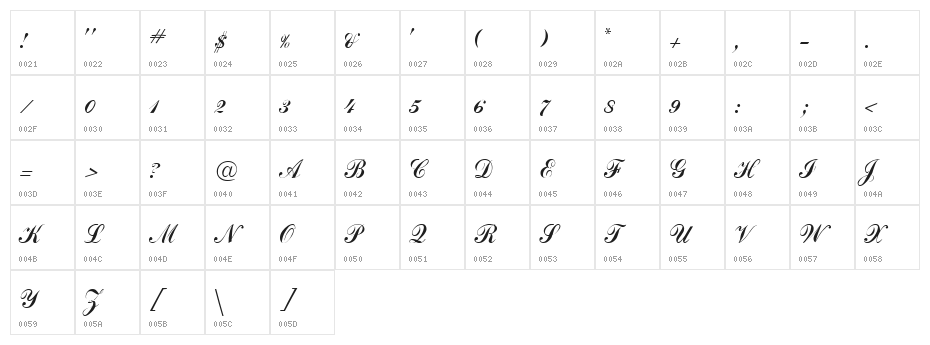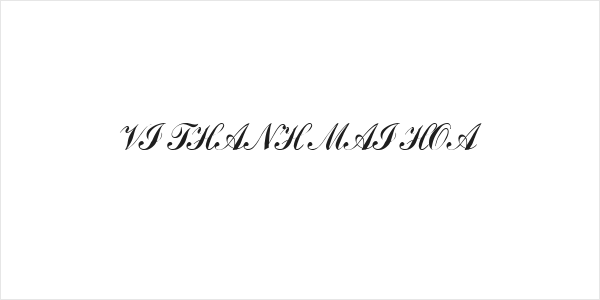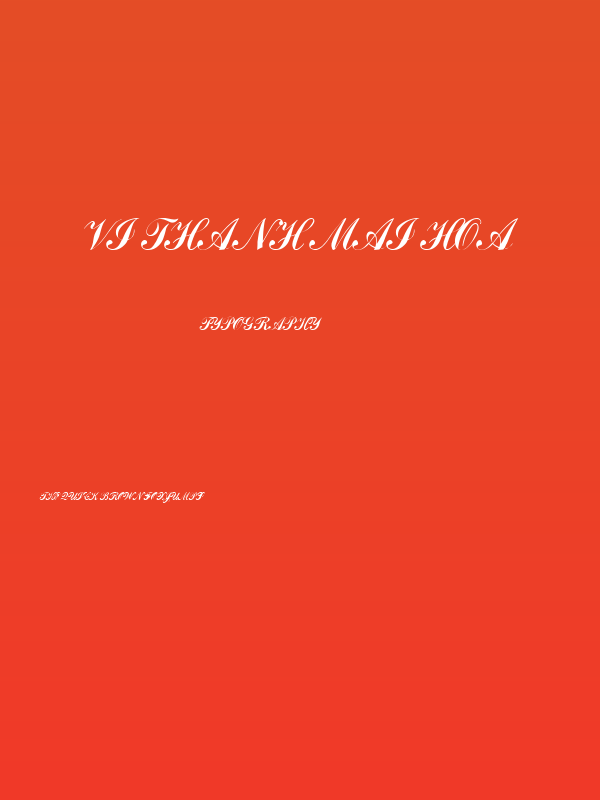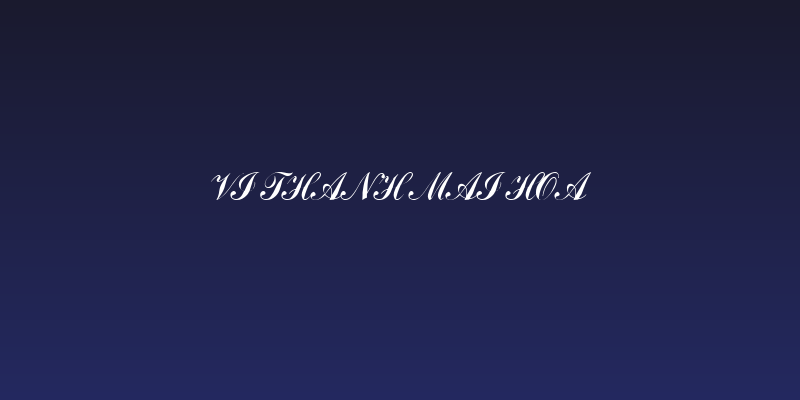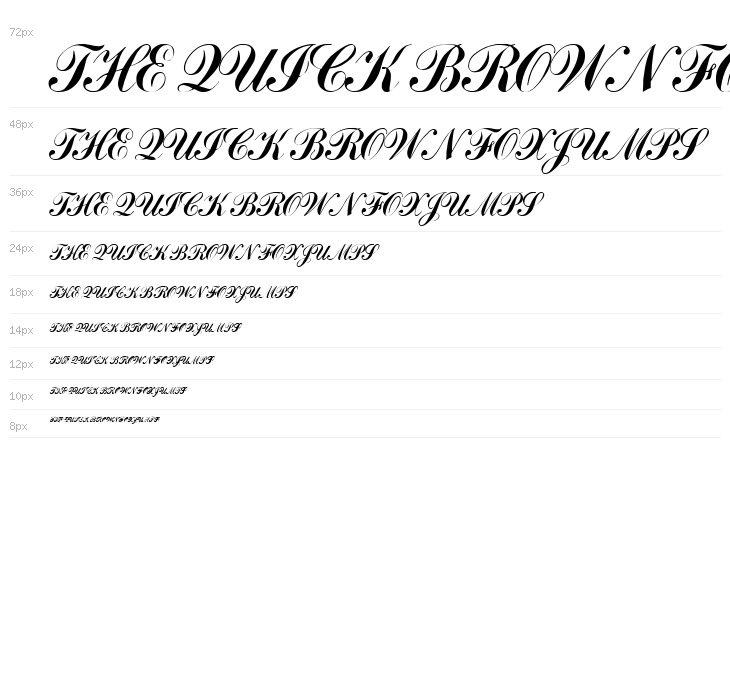
VI Thanh Mai Hoa Font
VI Thanh Mai Hoa Description
This elegant script font features flowing, interconnected letters with a classic calligraphic style. The uppercase letters are adorned with intricate swashes and flourishes, giving them a sophisticated and ornate appearance. The lowercase letters maintain a consistent style, with smooth curves and delicate loops that enhance the font's graceful aesthetic. The numerals are designed with a similar flair, ensuring a cohesive look across all characters. Special characters are included, each crafted with the same attention to detail, making this font versatile for various design needs. The overall impression is one of elegance and refinement, suitable for formal invitations, branding, and decorative purposes.
| Use Case | Logos, Invitations, Decorative Text |
| Proposed Projects | Ideal for wedding invitations, luxury branding, elegant stationery, and decorative headlines. |